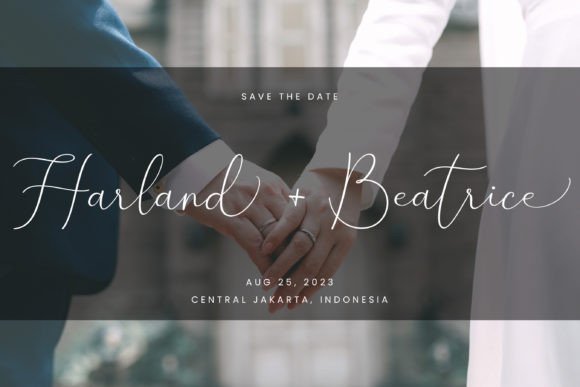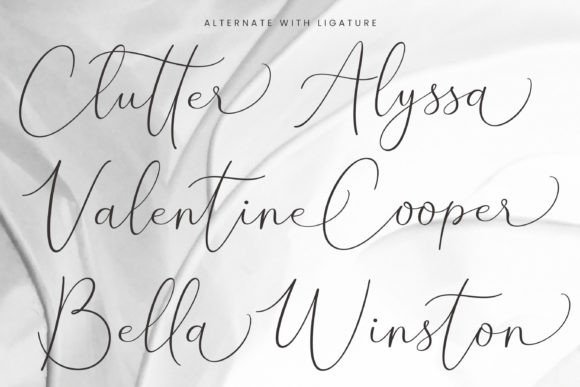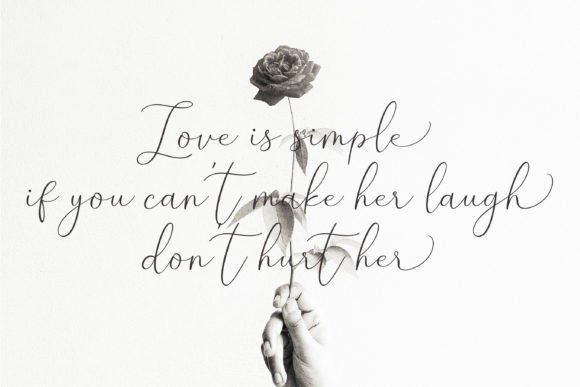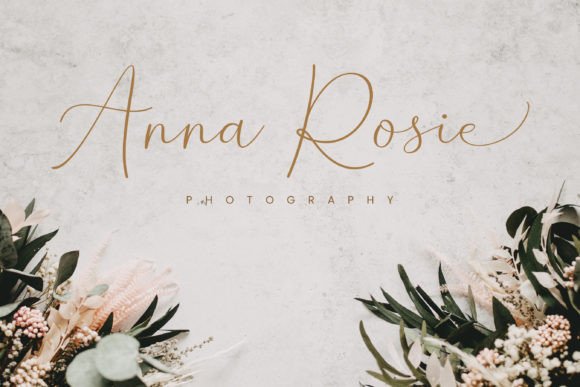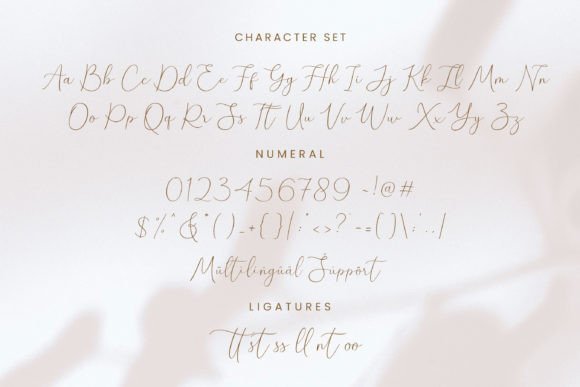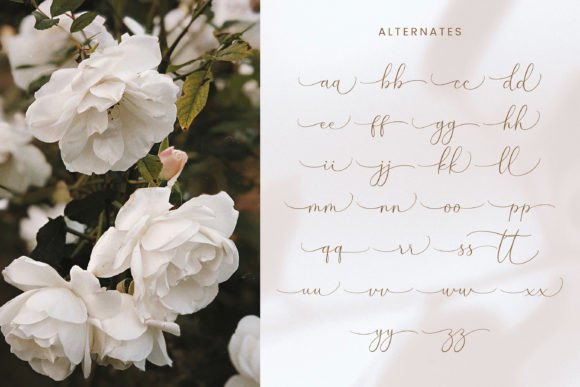
The Elusive Perfect Font: My Encounter with Denara
I’ll never forget the time I was working on a wedding invitation project, and my client asked for a font that exuded elegance and sophistication. I scoured the internet, tried out countless fonts, but nothing seemed quite right. That was until I stumbled upon Denara, a stunning script font that instantly caught my eye. In this article, I’ll share my experience with Denara, its features, and how to make the most of it in your designs.
First Impressions: A Love Letter to Denara
Denara is a script font that embodies the perfect blend of elegance and playfulness. Its natural, fluid handwriting style makes it ideal for a wide range of projects, from invitations and greeting cards to logos and more.
What I Love About Denara ✨
- 💫 Elegant and sophisticated: Denara’s fluid strokes and beautiful letterforms make it perfect for high-end designs.
- ✅ Highly versatile: This font can be used for a variety of projects, from formal events to creative branding.
- 🎨 Artistic and expressive: Denara’s handwriting style adds a touch of personality to any design.
- ⚠️ Limited use in body text: Due to its script nature, Denara may not be the best choice for long blocks of text.
- ⚠️ Requires attention to spacing: To ensure optimal readability, you may need to adjust the spacing between letters and words.
- Experiment with OpenType features, such as stylistic alternates, to add more flair to your text.
- Explore the OpenType menu to access features like glyphs, ligatures, and stylistic alternates.
The Story Behind Denara: Designer Inspiration
Denara was inspired by the beauty of handwritten calligraphy. Its creator aimed to craft a font that would evoke the feeling of a personal letter or a handwritten note. With its fluid strokes and elegant letterforms, Denara is a testament to the power of handwriting in digital design.
| Font Name | Denara Font |
| Author | Flawless And Co |
| What type of projects is Denara best suited for? | Denara is ideal for projects that require an elegant and sophisticated touch, such as invitations, greeting cards, logos, and more. |
| Is Denara a difficult font to read? | Denara is a script font, and while it’s beautiful, it may not be the most readable font for long blocks of text. Use it for headlines, titles, or short paragraphs. |
| Can I use Denara with other fonts? | Yes, Denara can be paired with other fonts to create a unique visual style. Experiment with different font combinations to find the perfect match. |